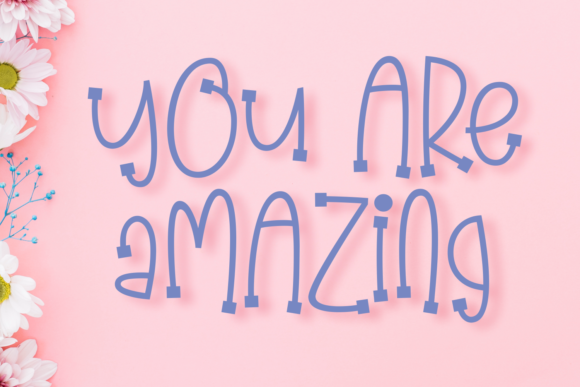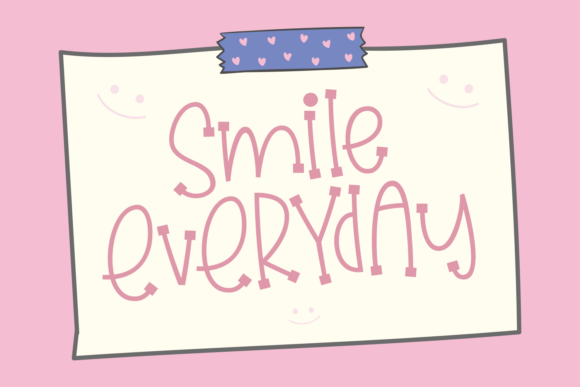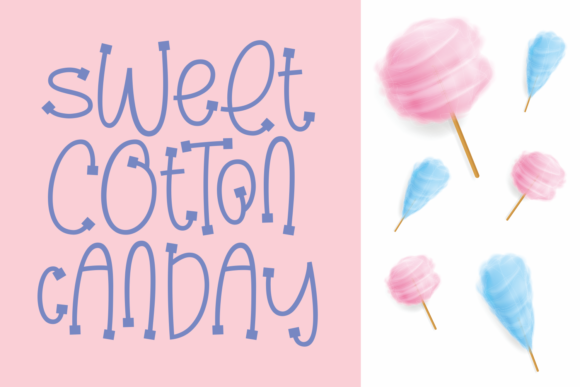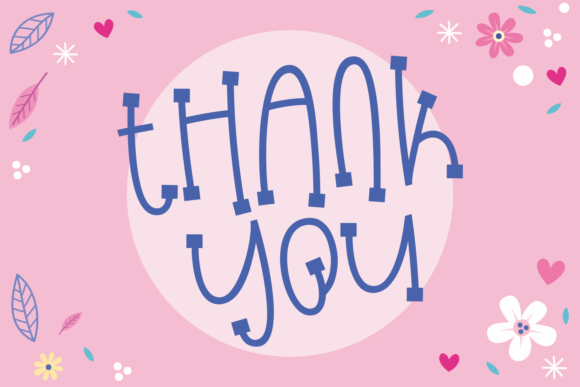
Hello Children Font: The Ultimate Friendly Font for Creative Projects
Hello Children is a delightful, casual handwritten font that exudes warmth and friendliness. This charming font is perfect for designers, crafters, and DIY enthusiasts looking to add a personal touch to their creative projects. Whether you’re designing for Instagram, crafting calligraphy scripts, or working on a DIY project, Hello Children font is sure to turn your ideas into stunning works of art.
The Characteristics of Hello Children Font
Hello Children font boasts an incredibly friendly feel, making it ideal for a wide range of creative applications. Its casual, handwritten style gives it a relaxed and approachable vibe, perfect for designs that require a personal touch. The font’s cute and playful appearance makes it a great choice for projects aimed at a younger audience or for adding a whimsical touch to adult designs.
Uses for Hello Children Font
The versatility of Hello Children font makes it suitable for various creative projects, including:
• Instagram Graphics: Elevate your Instagram feed with Hello Children font. Use it to create eye-catching captions, quotes, or stories that showcase your personality or brand.
• Calligraphy Scripts: Add a touch of elegance to your DIY projects with Hello Children font. It’s perfect for creating beautiful calligraphy scripts for cards, invitations, or wall art.
• DIY Projects: Whether you’re working on a craft project, making signs, or creating homemade decor, Hello Children font can add a friendly and approachable feel to your work.
• Branding and Packaging: For businesses looking to create a friendly and approachable brand image, Hello Children font can be used for logos, packaging, and marketing materials.
Why Choose Hello Children Font?
There are several reasons why Hello Children font stands out from other fonts:
• Unique Style: Hello Children font has a unique, handcrafted feel that sets it apart from more traditional fonts.
• Ease of Use: This font is incredibly easy to read and use, making it perfect for both digital and print applications.
• Versatility: Its friendly and approachable style makes it suitable for a wide range of projects, from children’s designs to adult-oriented content.
• Emotional Connection: The warmth and friendliness of Hello Children font can help create an emotional connection with your audience, making your designs more impactful.
Tips for Using Hello Children Font
To get the most out of Hello Children font, consider the following tips:
• Pair with Contrasting Fonts: Combine Hello Children font with a more formal or contrasting font to create visual interest and hierarchy in your designs.
• Experiment with Colors: Don’t be afraid to experiment with different colors to match the tone and theme of your project. Bright and pastel colors work particularly well with this font.
• Play with Size and Weight: Varying the size and weight of Hello Children font can add depth and emphasis to your designs.
Hello Children font is a versatile and charming addition to any designer’s or crafter’s toolkit. Its friendly and approachable feel makes it perfect for a wide range of creative projects, from Instagram graphics and calligraphy scripts to DIY projects and branding materials. With its unique style, ease of use, and emotional resonance, Hello Children font is sure to bring your creative ideas to life and leave a lasting impression on your audience.